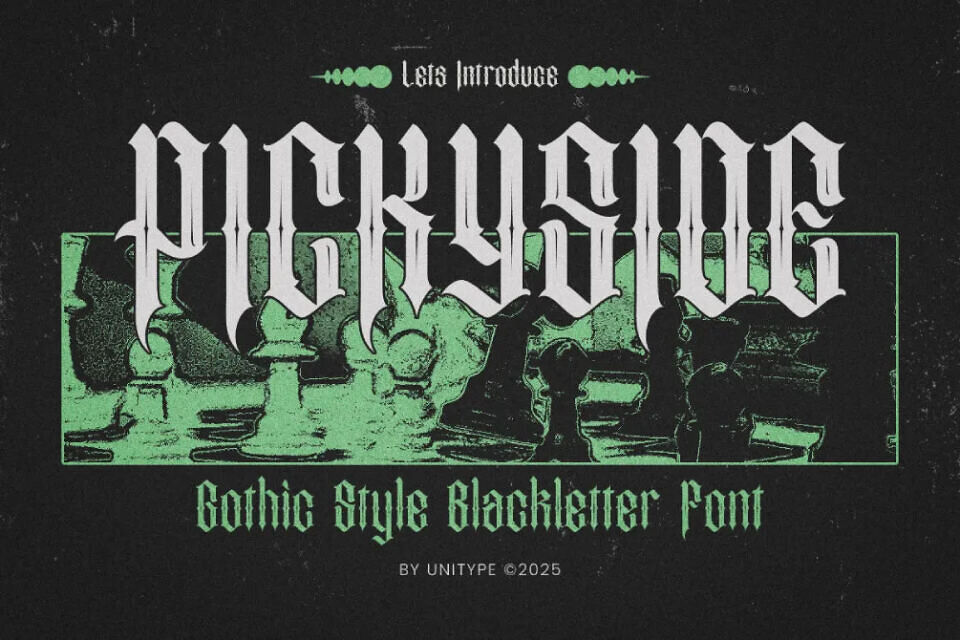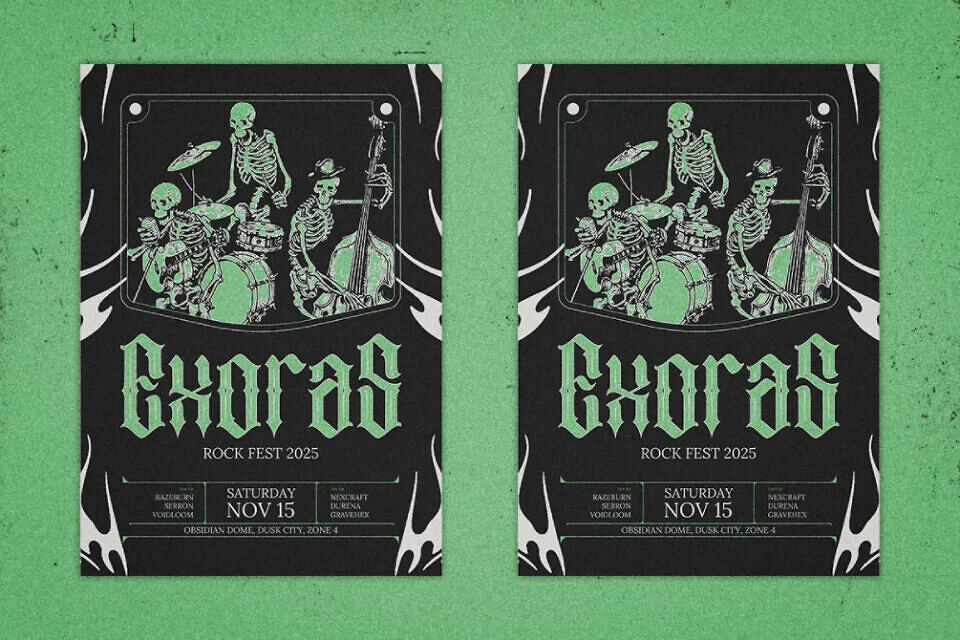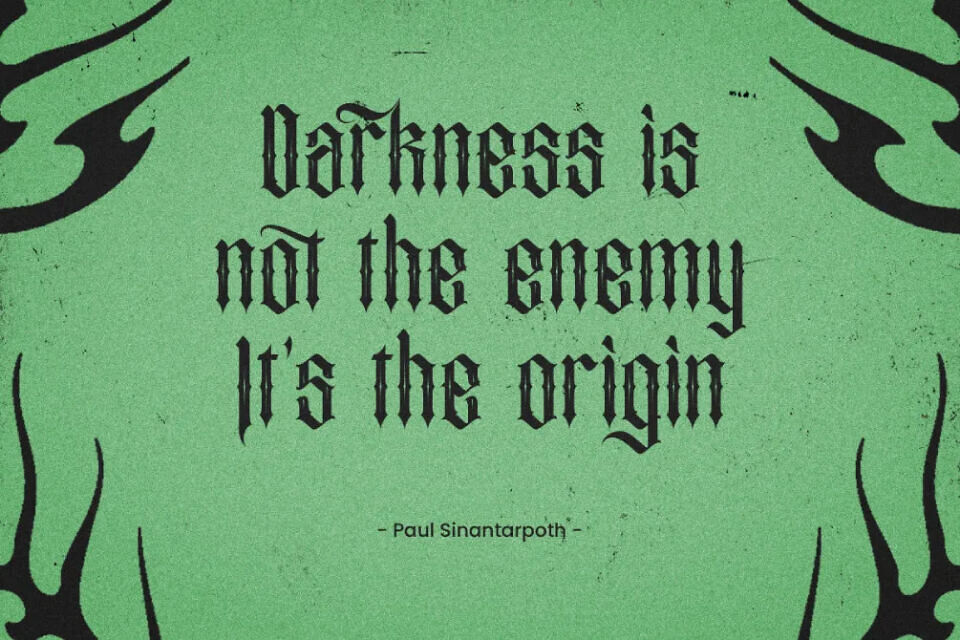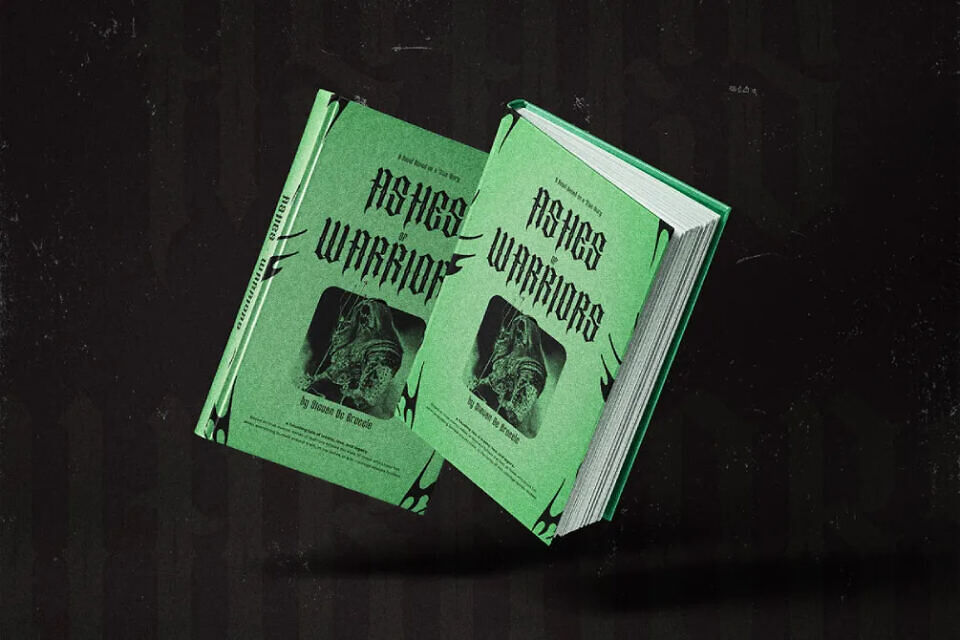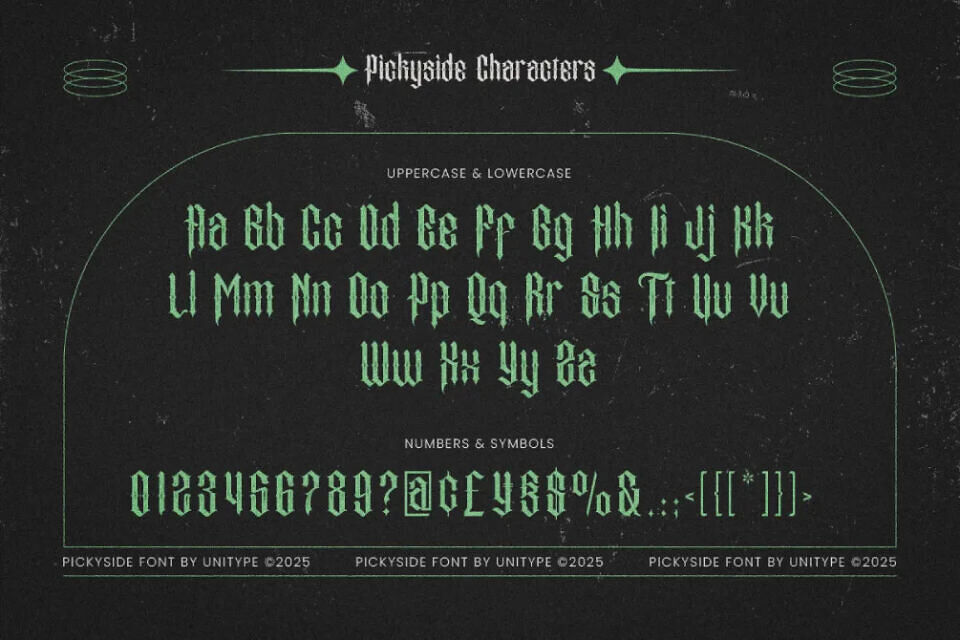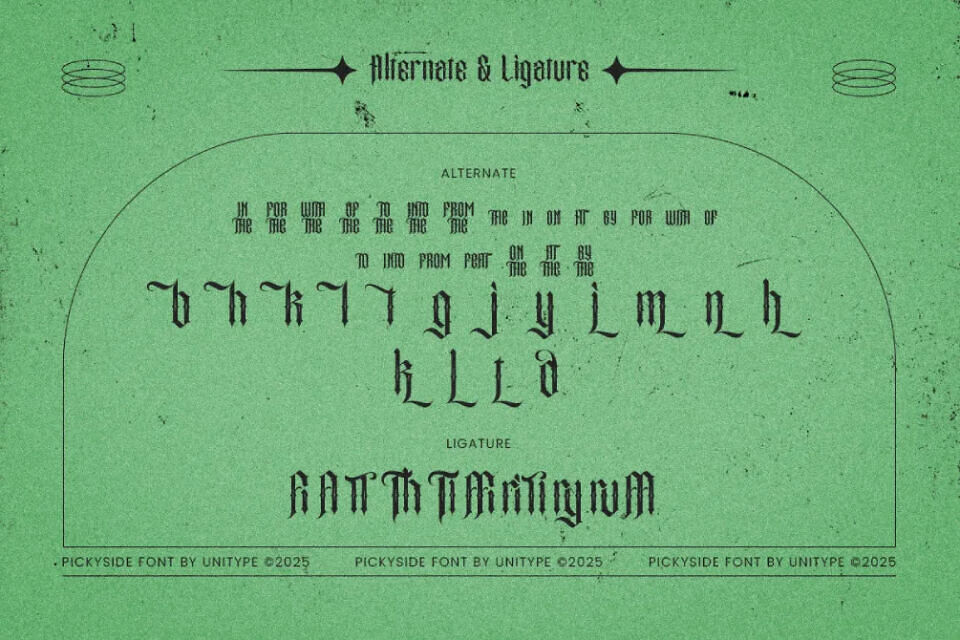
Pickyside Font
Pickyside is a bold blackletter display font with a gothic, edgy aesthetic inspired by Old English and heavy metal styles.
Its sharp strokes and dramatic letterforms create a strong visual impact, making it ideal for logos, posters, tattoos, and branding that demand attention. With a dark, expressive personality, Pickyside adds a rebellious and vintage touch to modern designs.